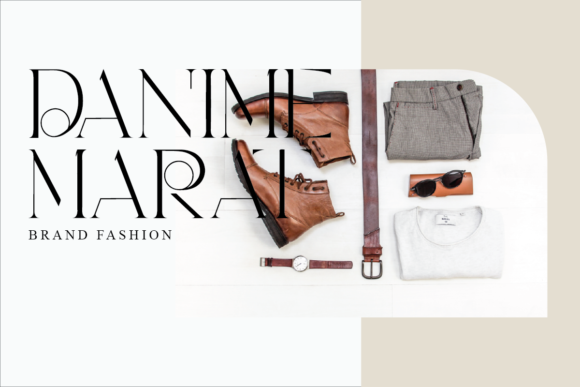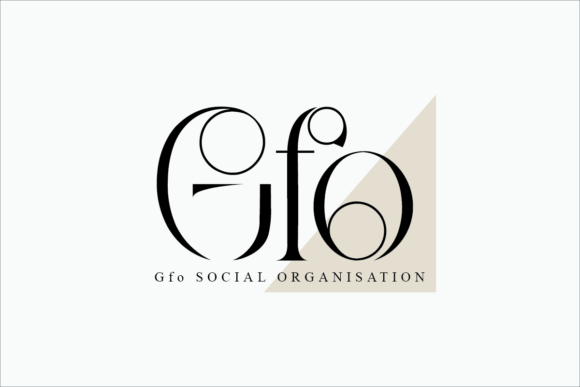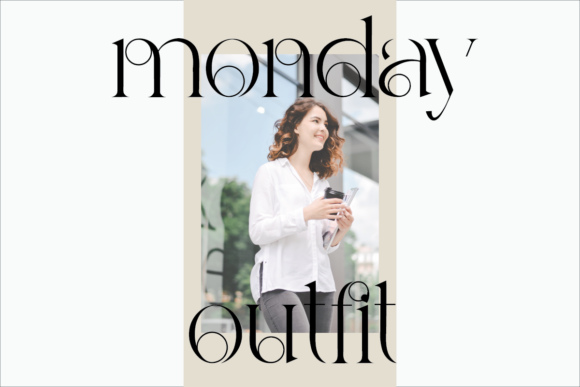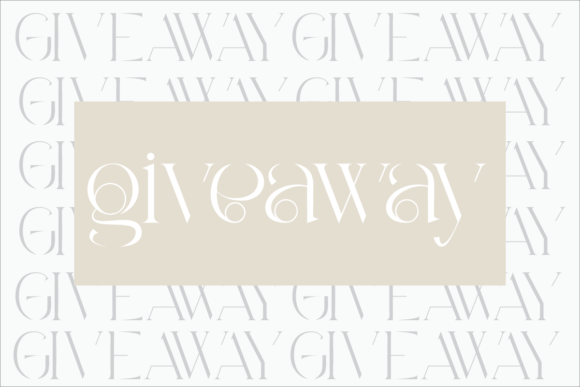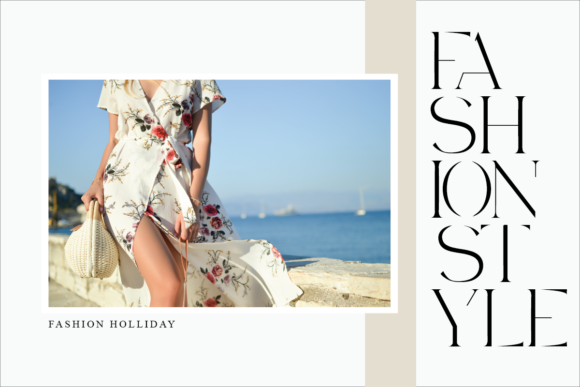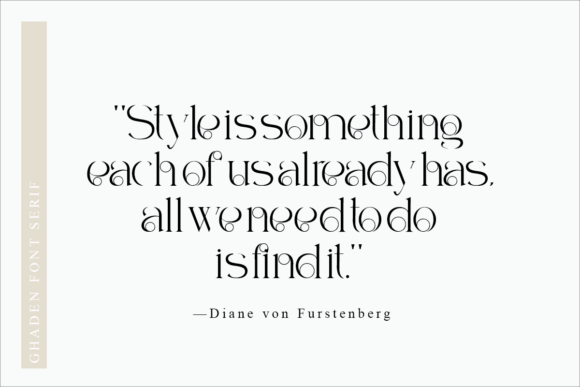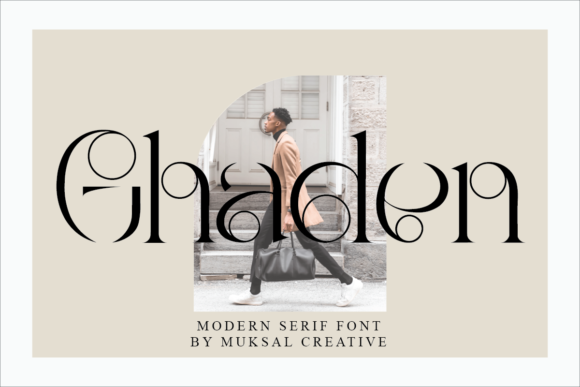
Introducing Ghaden Font: Elevate Your Designs with Modern Elegance
In the realm of typography, a font can make or break a design. For those seeking a modern and stylish serif font that exudes versatility, Ghaden Font is an exceptional choice. This impressive typeface is engineered to perform exceptionally well in both large and small sizes, making it an invaluable asset for a wide range of design projects.
The Versatility of Ghaden Font
Ghaden Font stands out due to its adaptability. Whether you’re working on editorial projects, crafting a logo, developing clothing branding, designing product packaging, creating magazine headers, or simply adding a stylish text overlay to a background image, Ghaden Font proves to be an excellent companion. Its ability to maintain its aesthetic appeal across various applications makes it a go-to font for designers and crafters alike.
Key Features of Ghaden Font
• Modern and Stylish Serif Design: Ghaden Font boasts a contemporary serif design that adds a touch of elegance and sophistication to any project.
• High Versatility: Its design ensures that it can be used in a multitude of contexts, from digital platforms to print materials.
• Legibility: Despite its stylish nature, Ghaden Font does not compromise on legibility, making it suitable for both headings and body text.
• Scalability: The font maintains its quality and aesthetic appeal whether it’s used in large titles or smaller body texts.
Applications of Ghaden Font
The applications of Ghaden Font are vast and varied. Here are a few examples of how this versatile font can elevate your designs:
• Editorial Projects: Add a professional and modern touch to articles, blogs, and publications.
• Logo Design: Create memorable and stylish logos that stand out.
• Clothing Branding: Elevate your brand’s typography with a modern and stylish serif font.
• Product Packaging: Stand out on store shelves with eye-catching and sophisticated packaging designs.
• Magazine Headers: Capture the attention of your readers with elegant and modern headers.
• Text Overlays: Add a professional touch to your background images with stylish and readable text overlays.
Why Choose Ghaden Font?
In a sea of fonts, Ghaden Font distinguishes itself through its unique blend of modernity and elegance. Here are a few reasons why designers and crafters should consider Ghaden Font for their projects:
• Unique Aesthetic: Offers a fresh and contemporary look that can set your designs apart.
• Time-Saving: Its versatility means you can use it across various projects, reducing the need to source multiple fonts.
• User-Friendly: Designed with readability in mind, making it comfortable for both digital and print use.
Ghaden Font is more than just a typeface; it’s a design companion that can elevate your projects with its modern and stylish serif elegance. Its versatility, scalability, and legibility make it an ideal choice for designers and crafters looking to add a touch of sophistication to their work. Whether you’re working on a large-scale editorial project or a small branding exercise, Ghaden Font is sure to impress with its performance and aesthetic appeal.